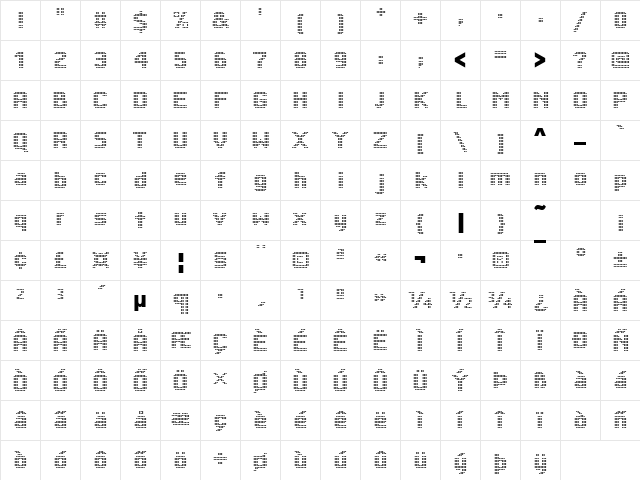
YardmasterD Regular
YardmasterD Family
YardmasterD Regular
Design Context for YardmasterD
YardmasterD is a composed and adaptable typeface that performs quietly and consistently across a wide range of design contexts.